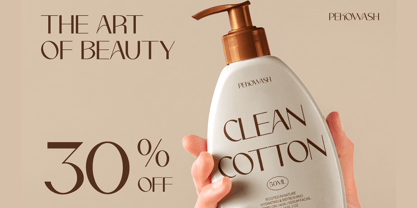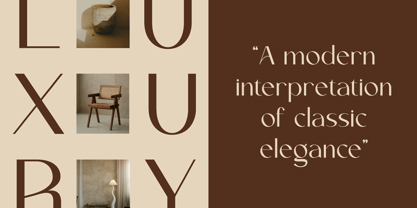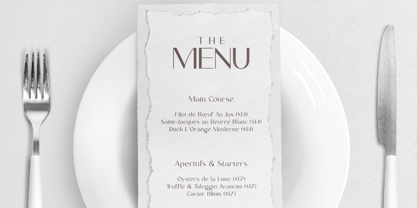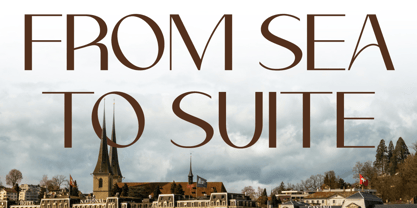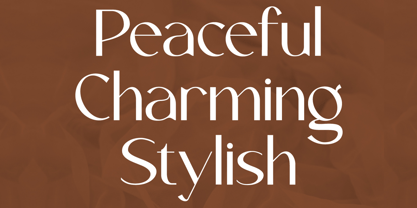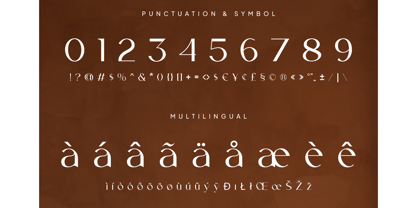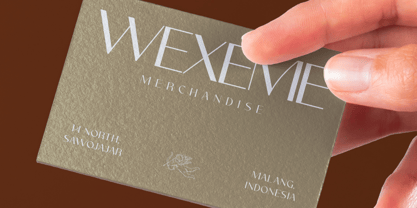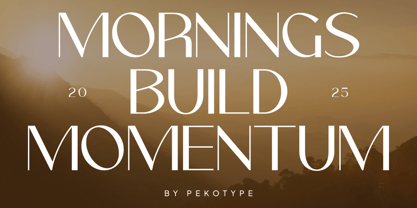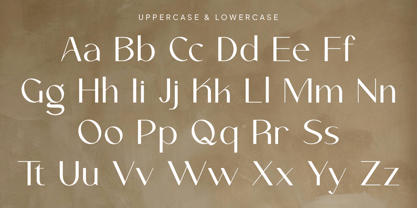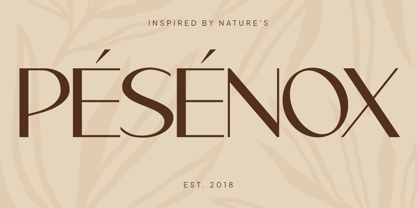
Legowo
by Pekotype
The Legowo Font Family was designed by Galang Bryan and published by Pekotype. Legowo contains 1 styles. More about this family
LEGOWO is a modern sans serif font that combines elegance and simplicity in a clean, stylish design. With its refined shapes and beautiful contrast, it’s perfect for branding, logos, editorial layouts, packaging, promotional materials, and social media content. Designed to create a professional and premium look, LEGOWO helps your designs feel confident, sophisticated, and timeless.